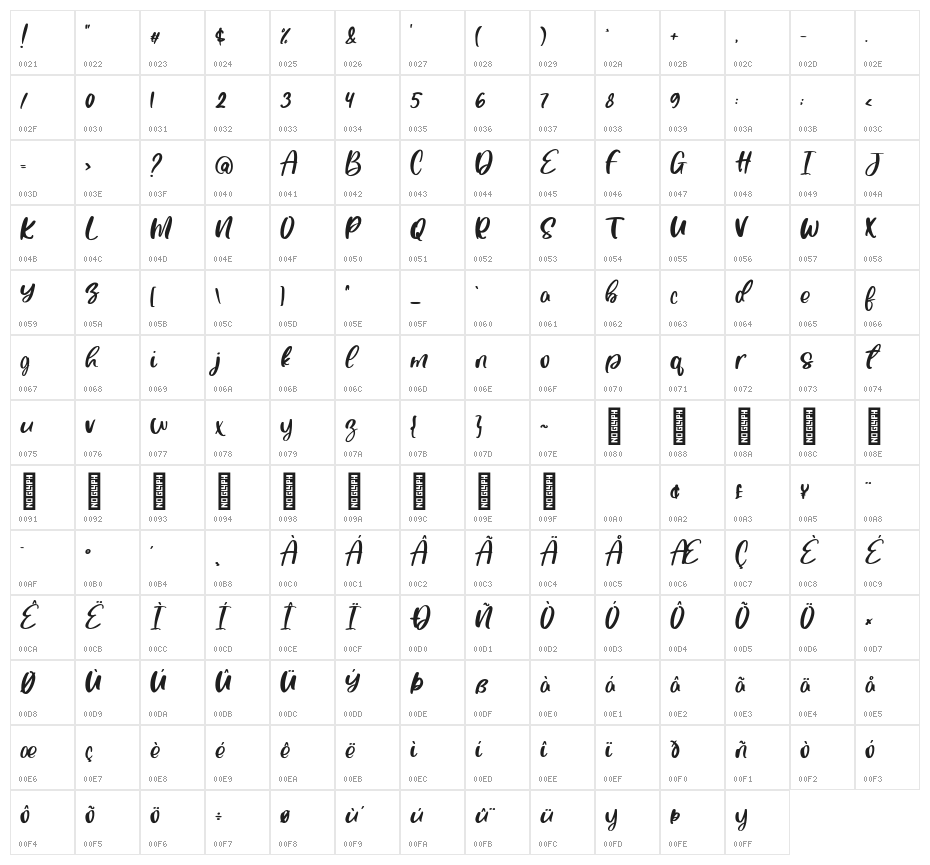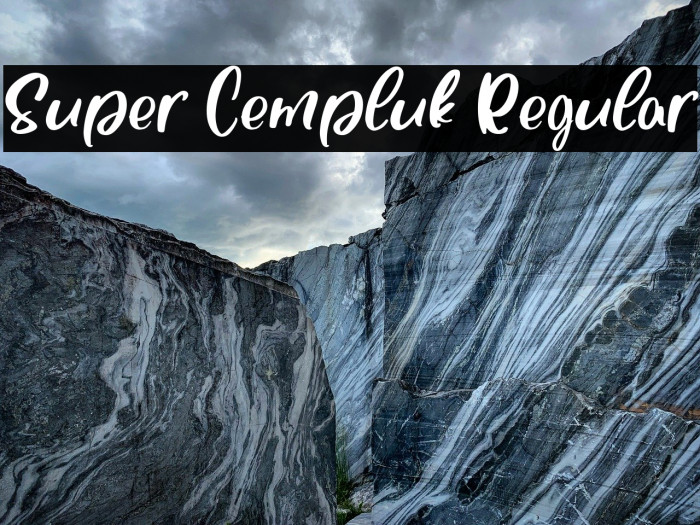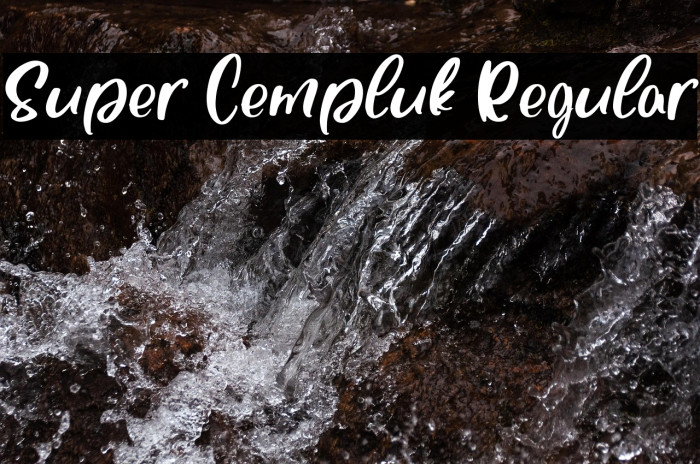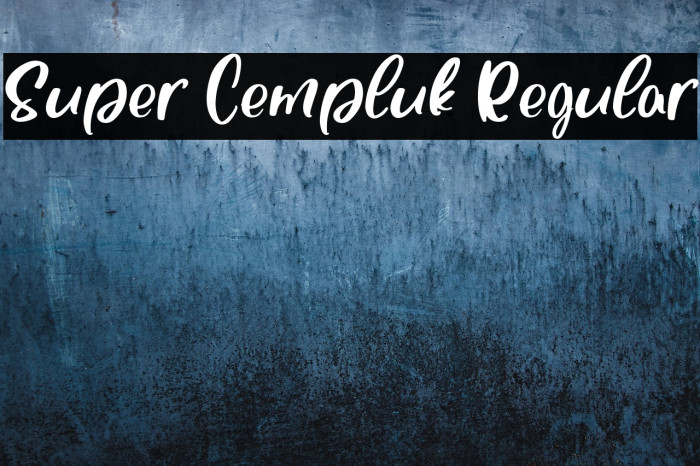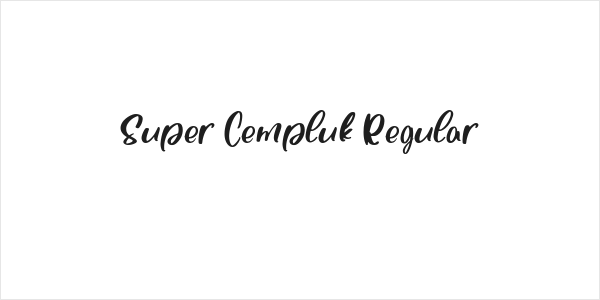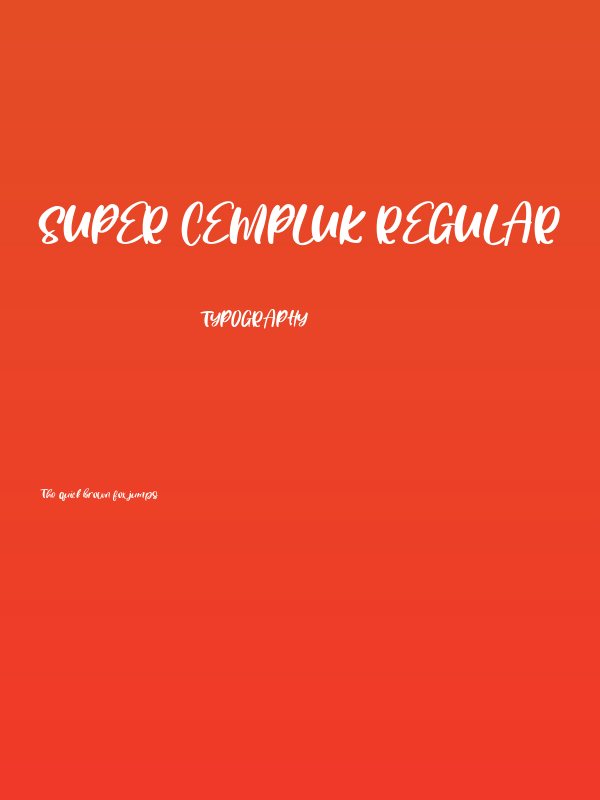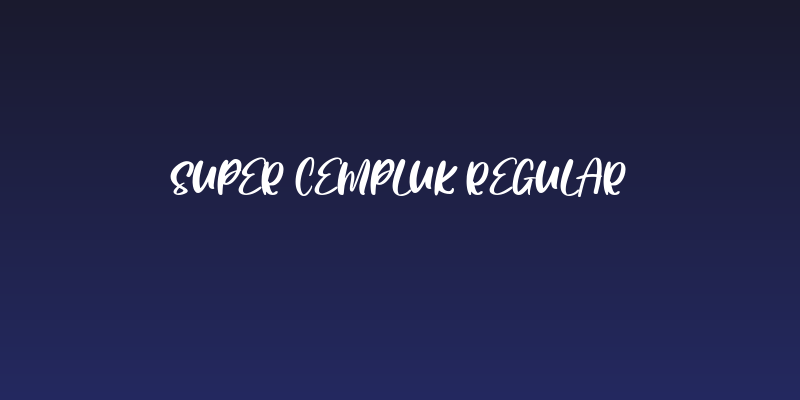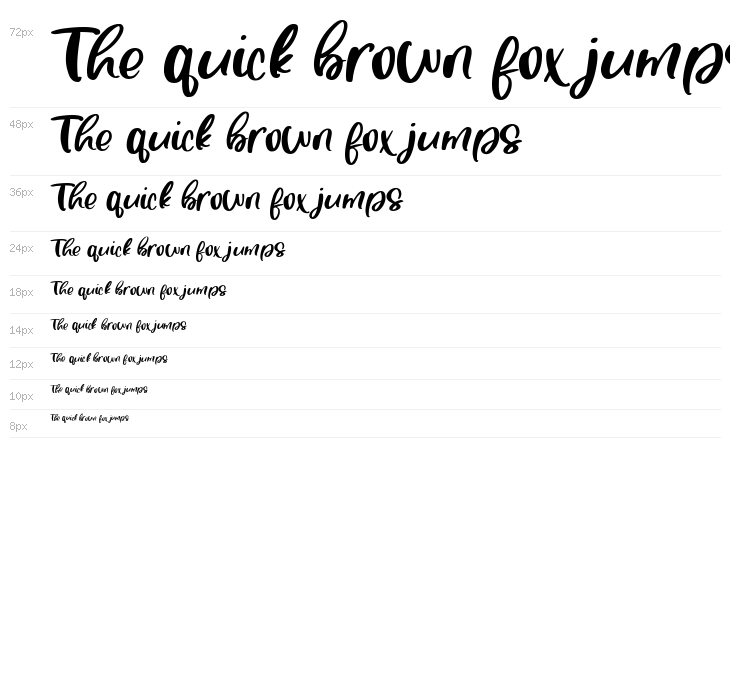
Super Cempluk Regular Font
Super Cempluk Regular Description
This font features a bold and expressive script style, characterized by its flowing, cursive letterforms. The strokes are thick and dynamic, giving the font a lively and energetic appearance. The uppercase letters are particularly striking, with a sense of movement and flair that makes them stand out. The lowercase letters maintain a consistent style, complementing the uppercase with their smooth curves and loops. The numbers and special characters are designed to match the overall aesthetic, ensuring a cohesive look across all text. This font is perfect for projects that require a personal touch, such as invitations, greeting cards, or branding materials.
| Proposed Projects | Ideal for invitations, greeting cards, branding, and other creative projects requiring a personal touch. |